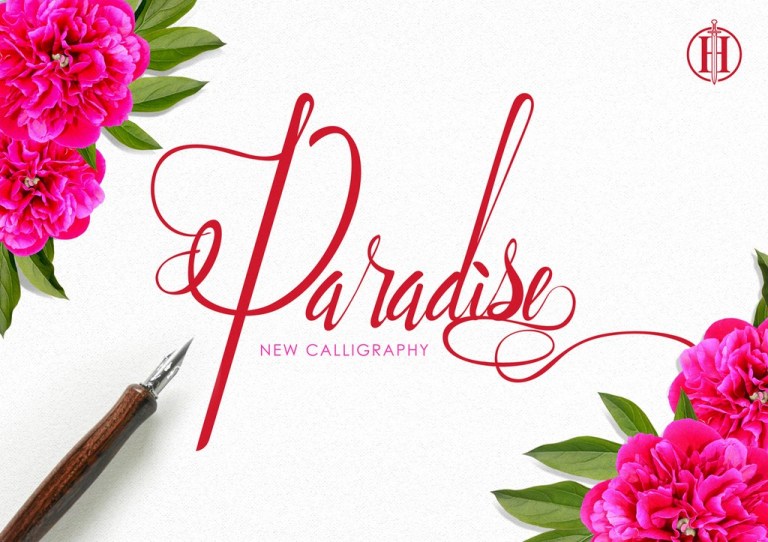
Paradise Script Font inspired by handwriting typography. The font is a really great typeface for your title, quotes, and body text.
Features: Features : Uppercase, Lowercase, Numeric, Punctuation, Alternate Characters and Ligatures.